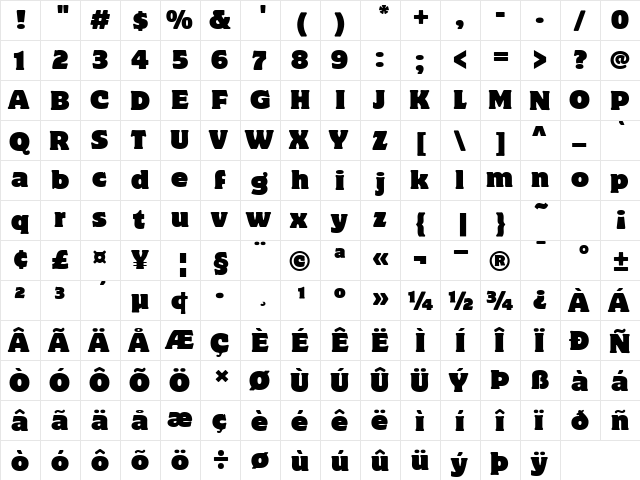
MotterCorpusITC Regular
Design Context for MotterCorpusITC Typeface
MotterCorpusITC is a composed and adaptable typeface that performs quietly and consistently across a wide range of design contexts.